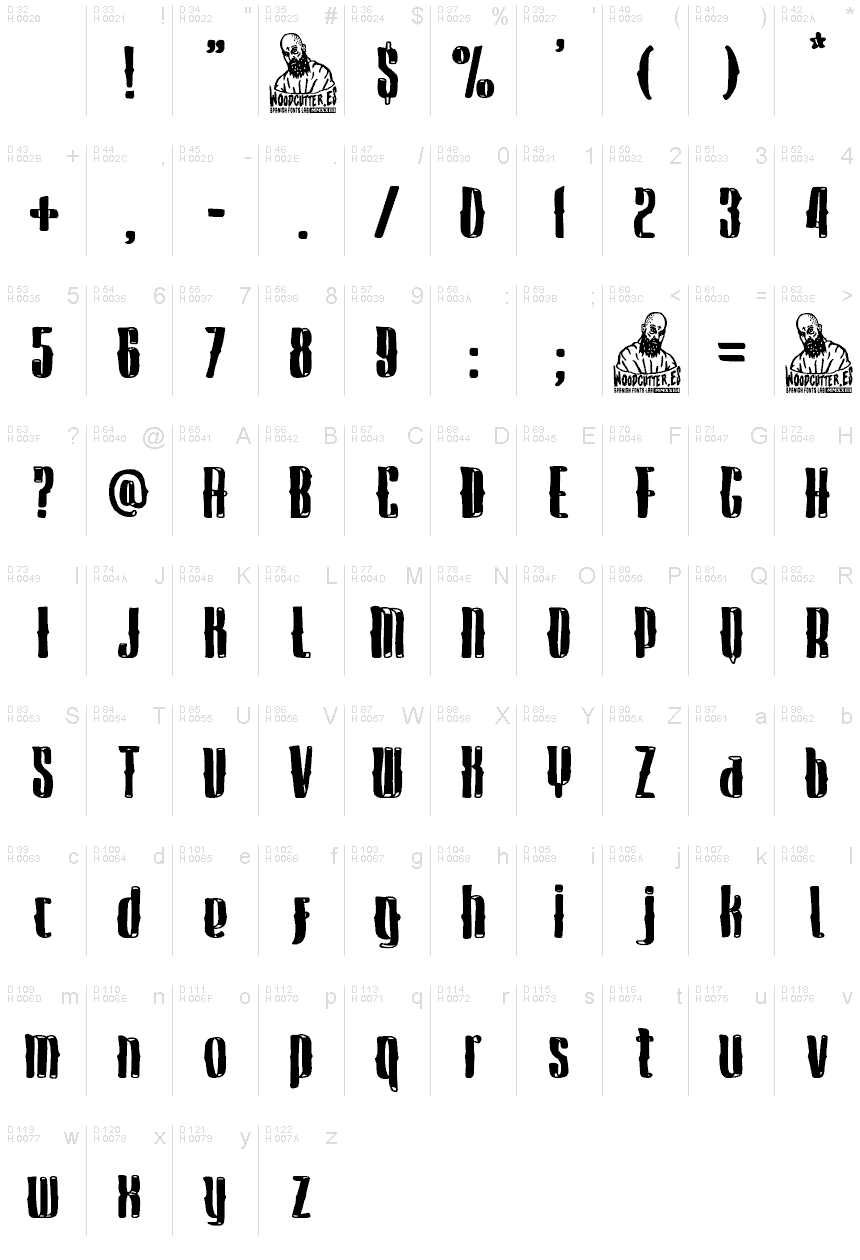
Retro Danger Gang
Retro Danger Gang font is a condensed display font by Woodcutter. The grungy typeface has a vintage flair with artistic texture and decorative elements that reflect an organized yet slightly chaotic appearance for creations that evoke nostalgia. The free font features non-uniform lines and some unexpected curves.
The eclectic style of this lovely old-school set finds numerous uses in product packaging and labels, branding projects, posters, typography art, website headers, apparel design, videogames interfaces, movie titles, album covers design pages in magazines or newspapers. Perfect also for greeting cards or invitations meant for Halloween parties!